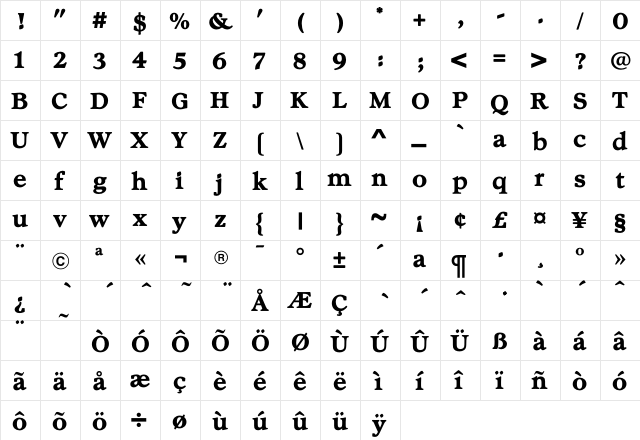
ChelseaBold Regular
Design Context for ChelseaBold Typeface
ChelseaBold takes a measured approach to typography — its balanced proportions and neutral character make it a reliable workhorse for both digital and print work. The heavy weight commands attention and anchors typographic hierarchies.